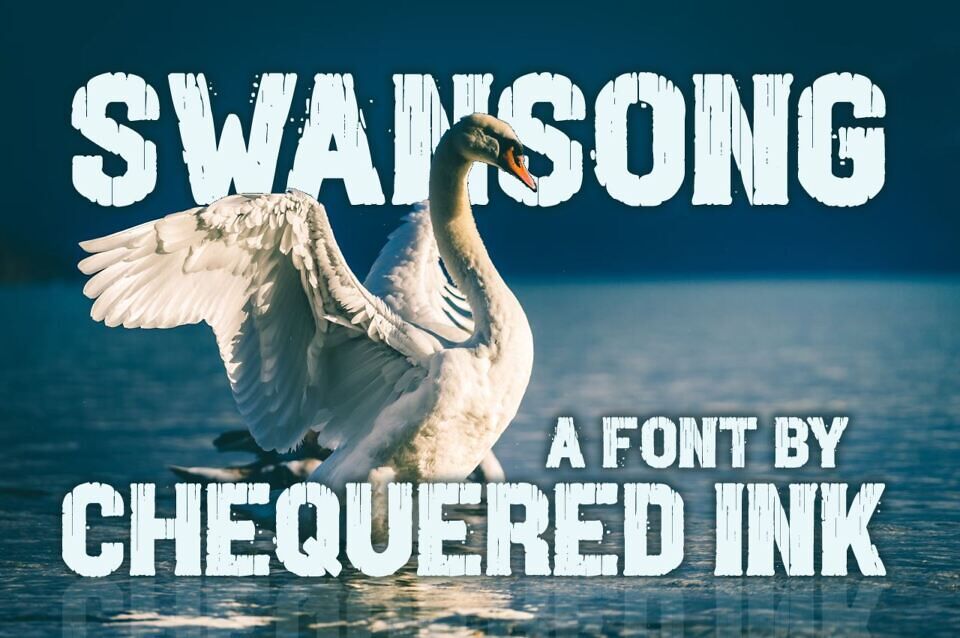
Swansong by Chequered Ink is a modern destroy‑style display typeface featuring bold, rough-edged letterforms that exude energy and edge.
Ideal for attention‑grabbing headlines, posters, branding, or gritty designs, Swansong brings a rebellious, handcrafted flair to any creative project.